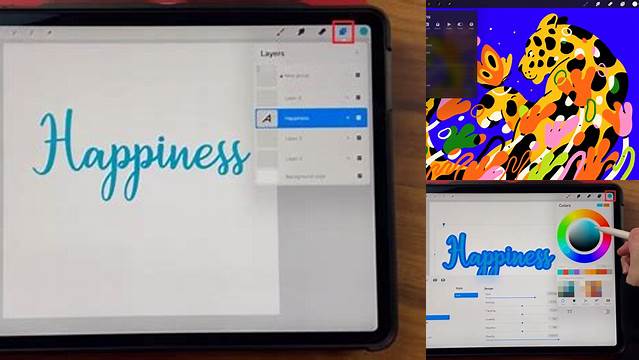
Import Fonts To Procreate On IPad: Easy Guide
Hey guys! Ever felt like your Procreate creations are missing that special something? Chances are, the right font can make all the difference! In this guide, we'll dive deep into how to import fonts to Procreate on your iPad, unlocking a whole new world of typographic possibilities. Whether you're a seasoned pro or just starting your digital art journey, mastering font import is a game-changer. Let's get started!
Why Custom Fonts Matter in Procreate
Before we jump into the nitty-gritty of importing, let's quickly chat about why custom fonts are so important in Procreate. Think of fonts as the voice of your artwork. A playful, whimsical font can inject a sense of fun and lightheartedness into a children's illustration, while a bold, modern sans-serif can lend authority and sophistication to a poster design. Procreate's built-in font selection is decent, but it's just the tip of the iceberg. Importing custom fonts allows you to:
- Express Your Unique Style: Stand out from the crowd by using fonts that perfectly match your artistic vision. Guys, this is where you really get to shine and make your work unmistakably yours!
- Enhance Readability and Impact: The right font can make your text more legible and engaging. Think about choosing fonts that complement your artwork, not compete with it.
- Match Branding Guidelines: If you're creating art for clients or building a brand, using consistent fonts is crucial. Importing your brand fonts ensures a cohesive look and feel. This is super important for maintaining a professional image!
- Access a World of Creativity: The world of fonts is vast and diverse! From elegant calligraphy scripts to futuristic geometric typefaces, importing fonts opens up endless creative avenues. Trust me, guys, you'll be amazed at what's out there! You can find fonts for every style and project imaginable.
The ability to use custom fonts truly elevates your Procreate projects from looking good to looking amazing. It's about control, creativity, and communicating your message with clarity and style. So, now that we understand the why, let's get into the how!
Preparing to Import Fonts to Procreate
Okay, guys, before we dive into the actual import process, let's get a few things squared away. Think of this as laying the groundwork for a smooth and successful font-importing experience. These steps are essential to ensure compatibility and prevent any frustrating hiccups along the way. Here’s what you need to do:
- Choose Your Import Method: We'll cover two main methods for importing fonts: using the Files app and using third-party apps. The Files app is the built-in option on your iPad and is generally the easiest method for most users. Third-party apps can offer additional features and organization options, but they are not strictly necessary for importing fonts to Procreate. We will look into both options and decide which is best for your workflow. Don't worry, guys, both methods are pretty straightforward, so you will be importing fonts in no time!
- Organize Your Fonts (Optional but Recommended): This is a pro tip, guys! Before you start importing a ton of fonts, it's a good idea to create a dedicated folder in your Files app (or your chosen third-party app) to store your fonts. This will keep things organized and make it easier to find the fonts you need later on. You can even create subfolders for different font styles or projects. Trust me, your future self will thank you for this! A good font library is a treasure trove for any artist.
By taking these preparatory steps, you're setting yourself up for a smooth and enjoyable font-importing process. Now, let's move on to the exciting part – actually importing those fonts!
Method 1: Importing Fonts Using the Files App
Alright, guys, let’s get down to business! The Files app is your trusty sidekick for managing files on your iPad, and it's also the easiest way to import fonts directly into Procreate. This method is straightforward and works seamlessly as long as your fonts are in a compatible format (.OTF or .TTF). Here’s a step-by-step guide to importing fonts using the Files app:
Remember, fonts are a powerful tool for expressing your unique style, enhancing readability, and creating impactful designs. By importing custom fonts into Procreate, you're taking control of your typographic destiny and elevating your artwork to new heights. Guys, don’t be afraid to experiment, explore new fonts, and find the perfect voice for your creations!